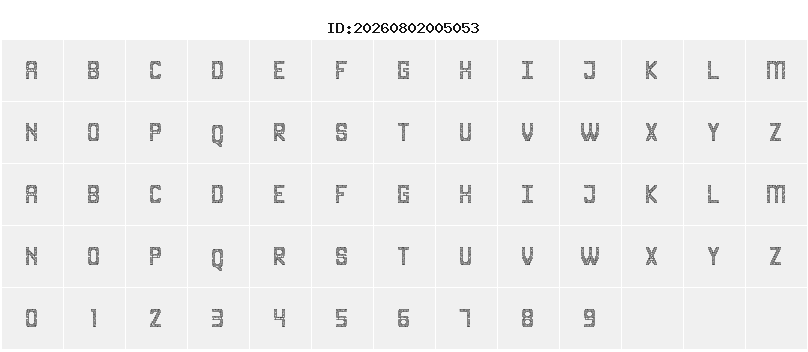
• Font Name: Maze Sanz
• Designer: McFood
• Description: “Maze Sanz” was built with FontStruct
About Maze Sanz.ttf
Maze Sanz.ttf is a modern, elegant sans-serif font designed for ultimate readability and visual harmony. Perfect for branding, headlines, web design, and print materials.